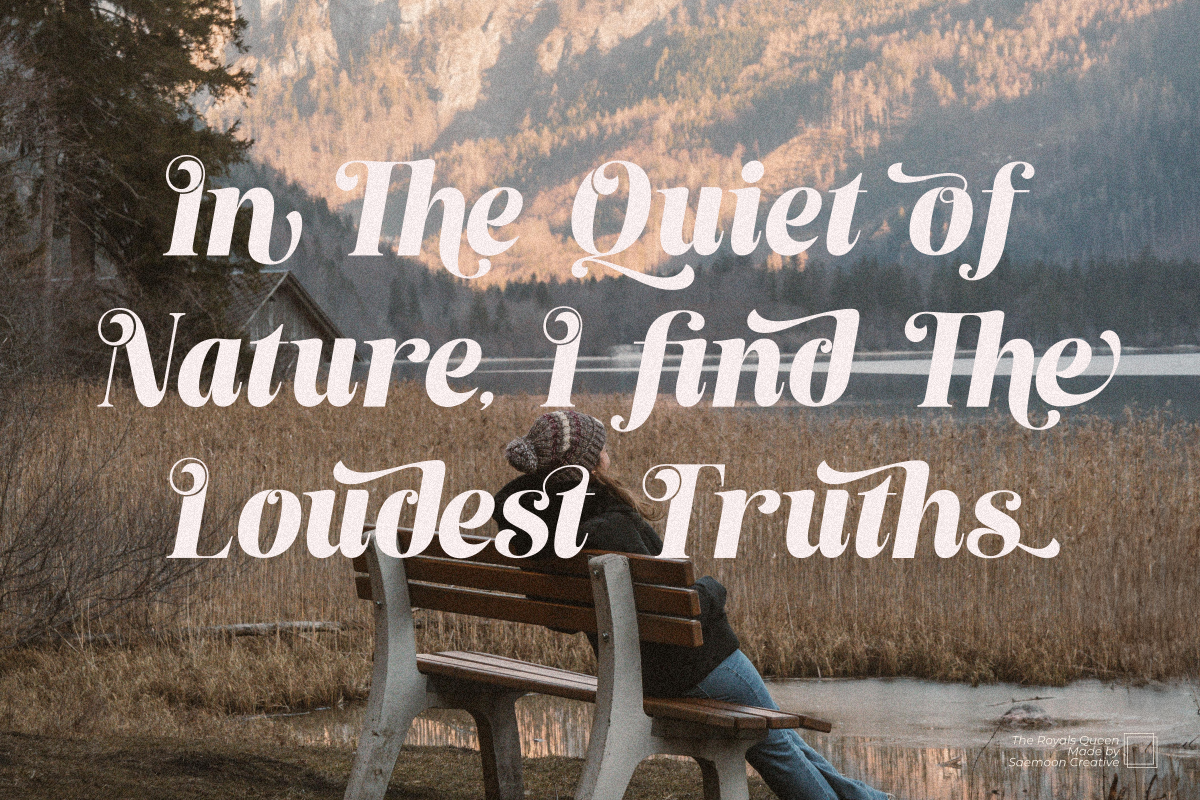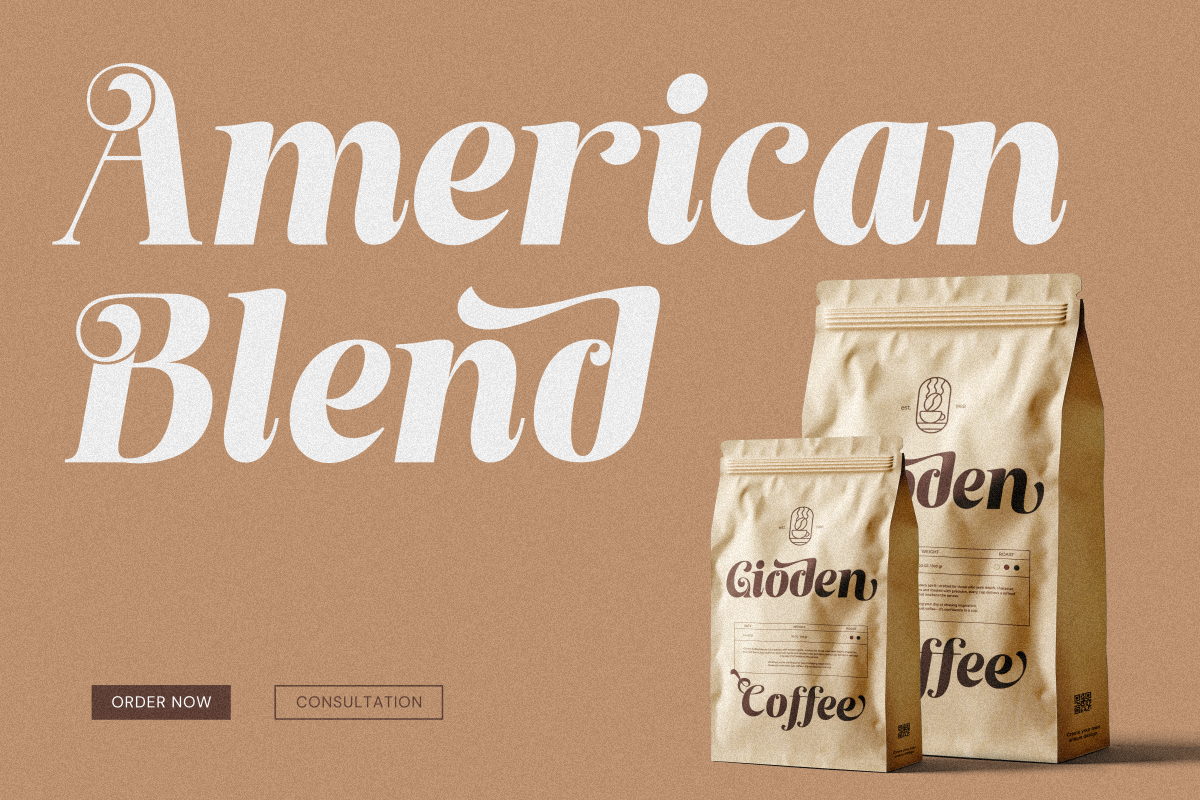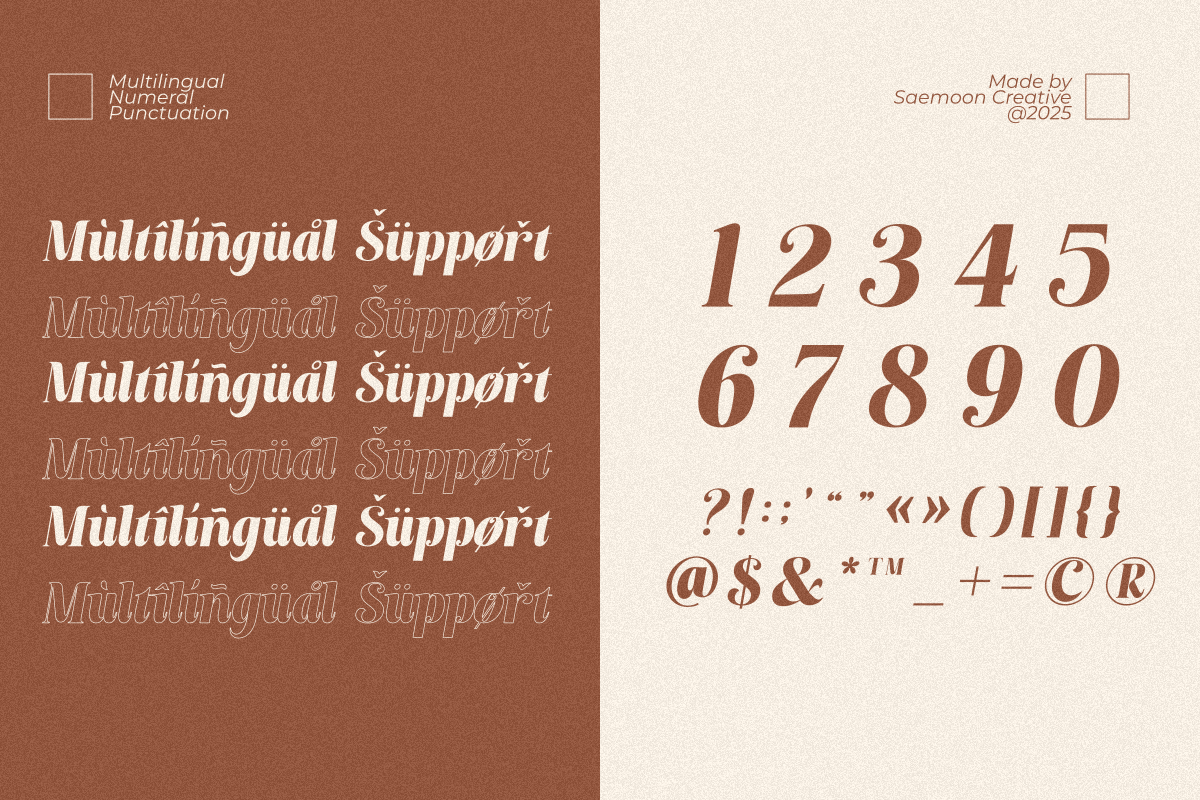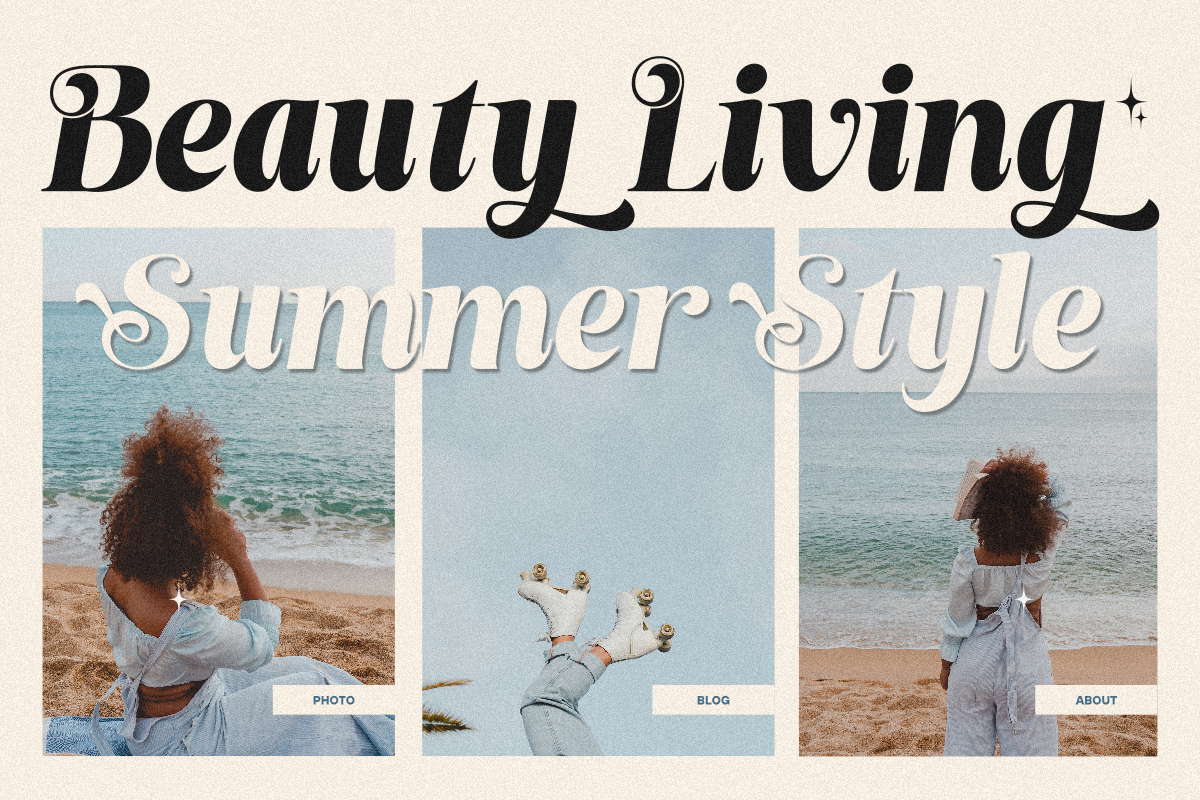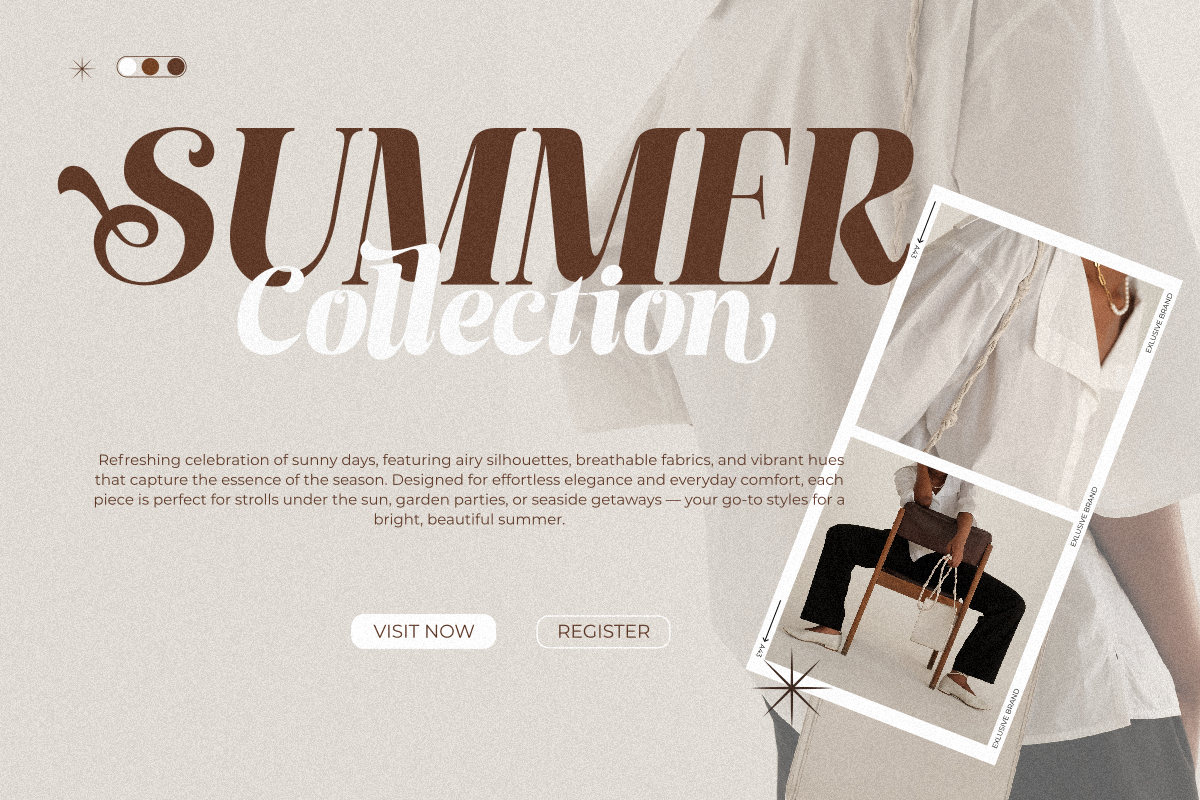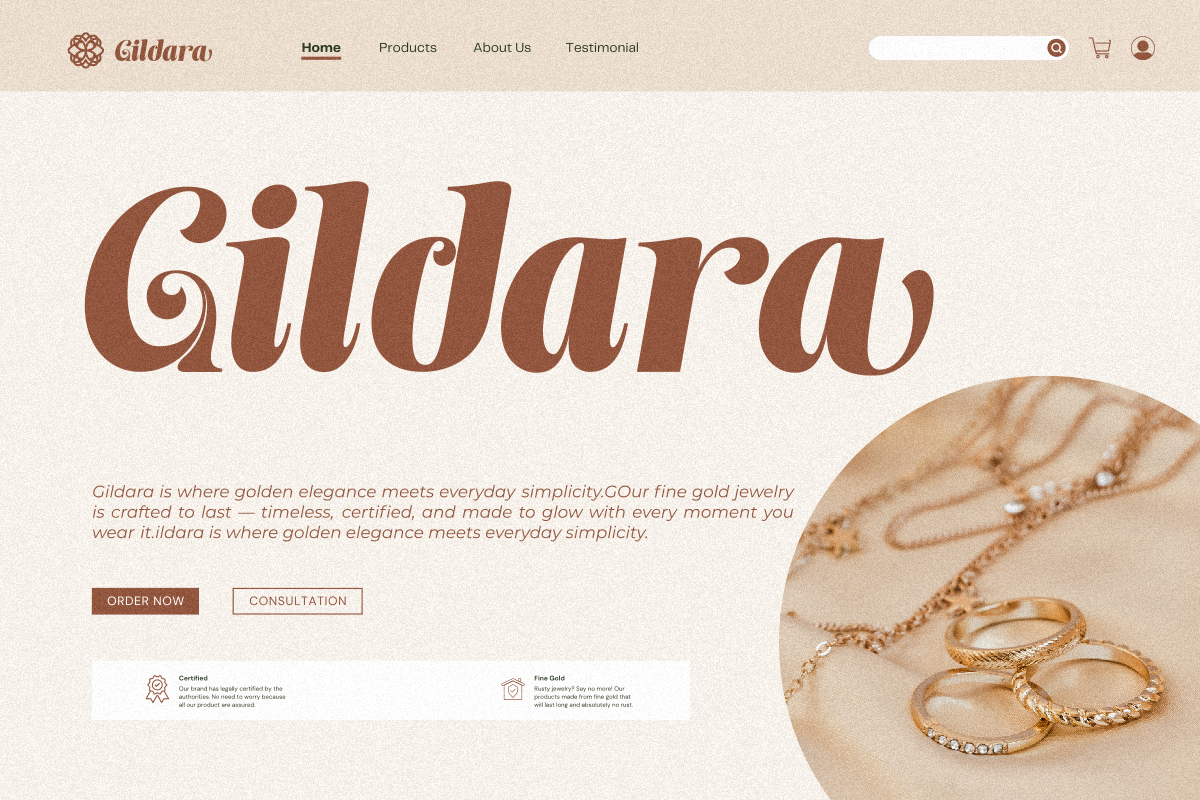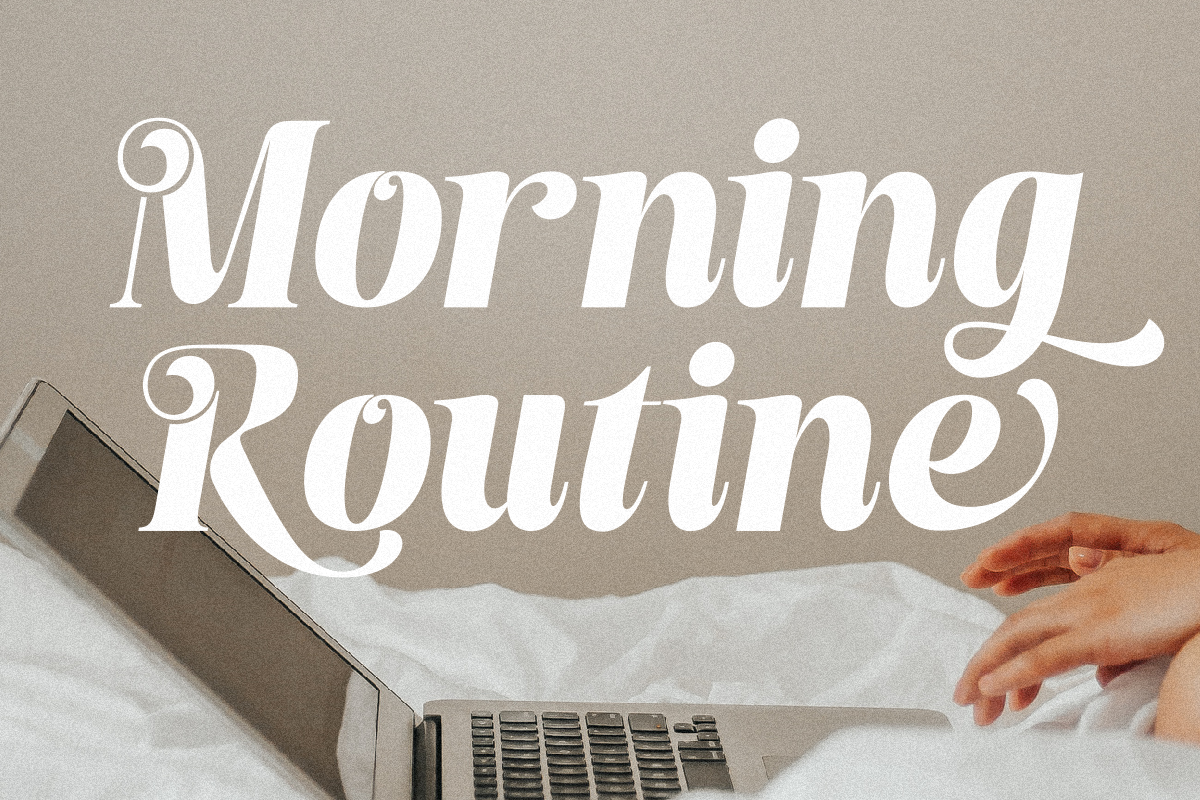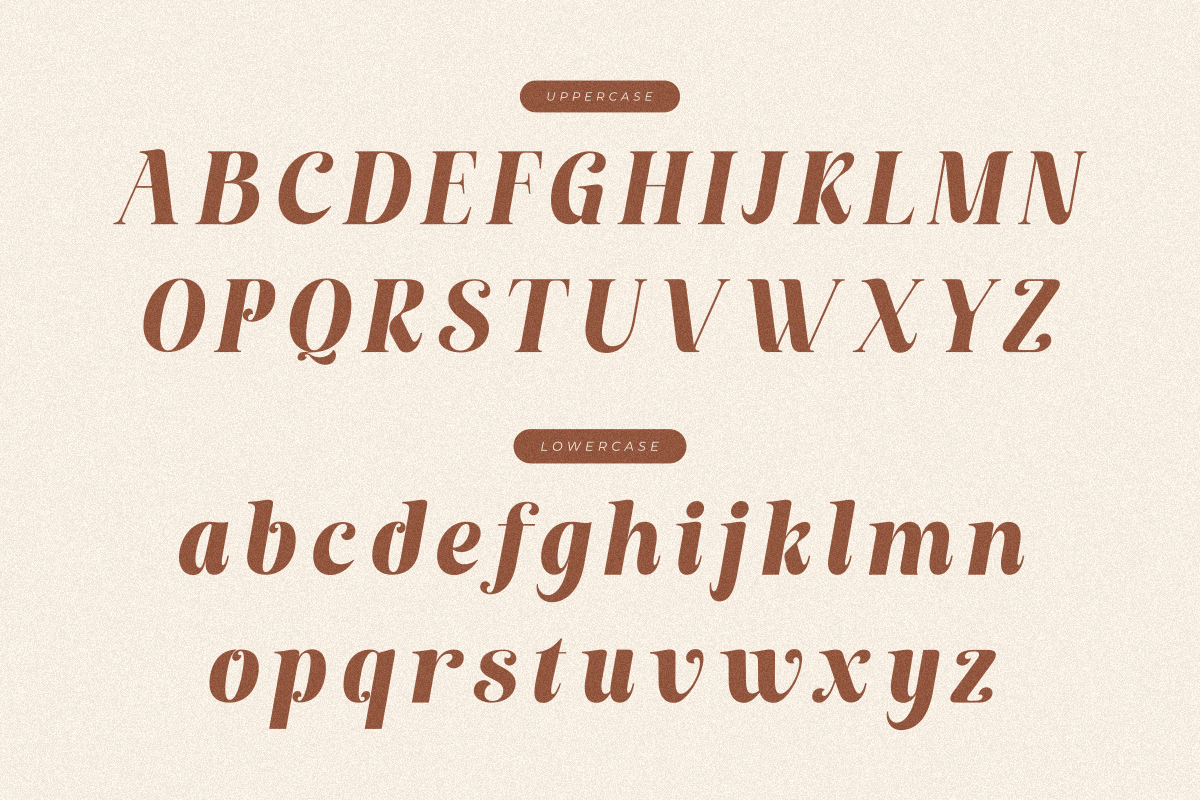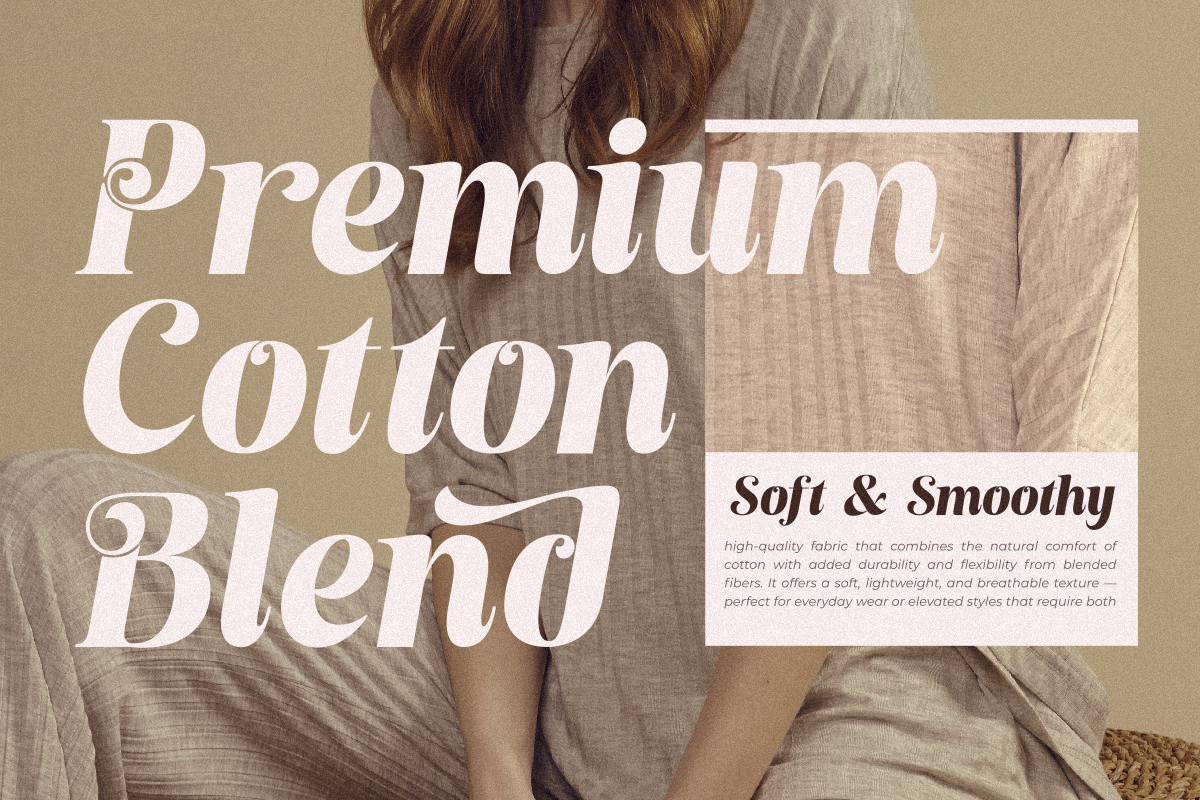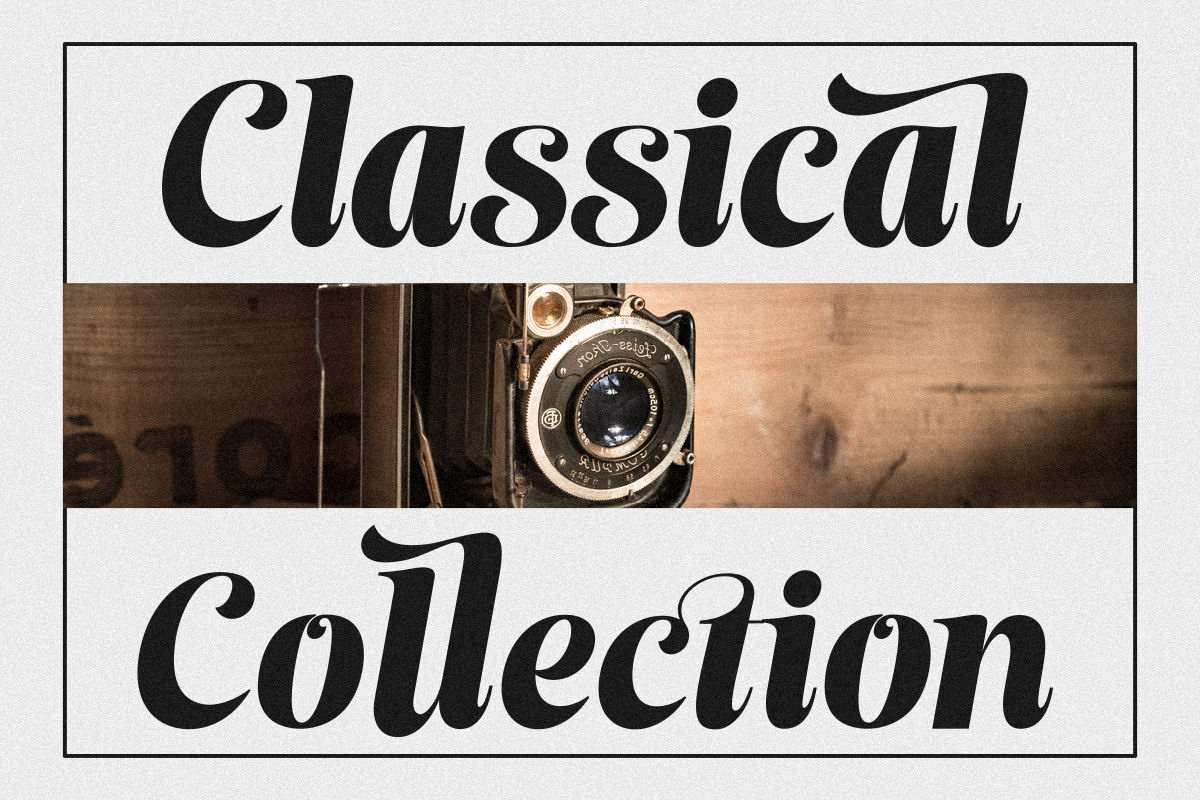
The Royals Queen
The Royals Queen – Elegant Italic Serif Bold
Add a regal flair to your designs with The Royals Queen, an elegant italic serif bold typeface crafted for standout display use. This luxurious font combines classic sophistication with a modern touch, making it perfect for branding, fashion headlines, logo design, wedding stationery, editorial layouts, and more.
Featuring over 78 stylistic ligatures and alternates, The Royals Queen lets you create dynamic and stylish compositions effortlessly. Each character is carefully designed with high contrast strokes, graceful curves, and expressive swashes to give your work a bold yet feminine statement.
Whether you're designing a magazine spread or a luxury brand logo, The Royals Queen delivers timeless elegance with personality.
Uppercase & Lowercase Letters
78+ Ligatures & Alternates
Punctuation & Multilingual Support
Make your next project majestic with The Royals Queen.